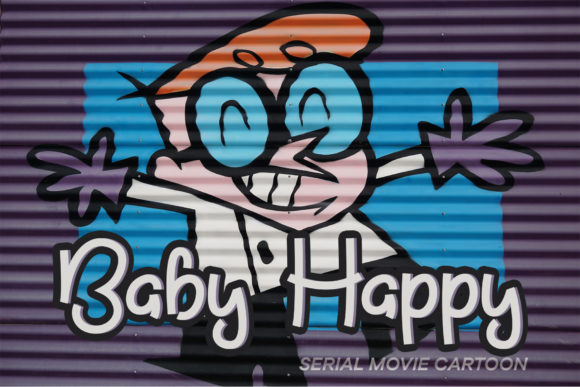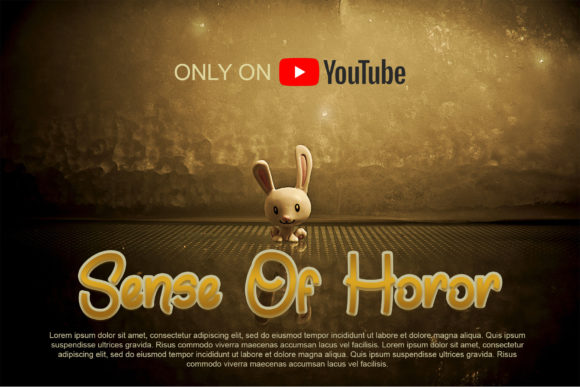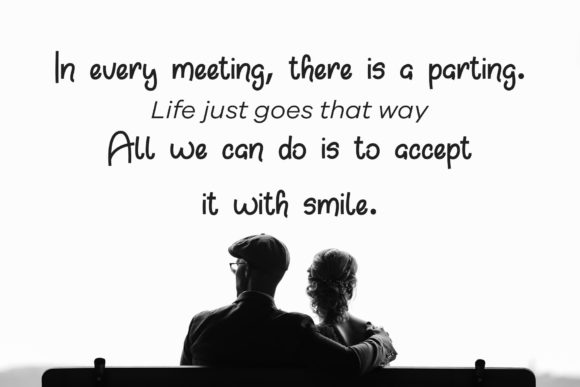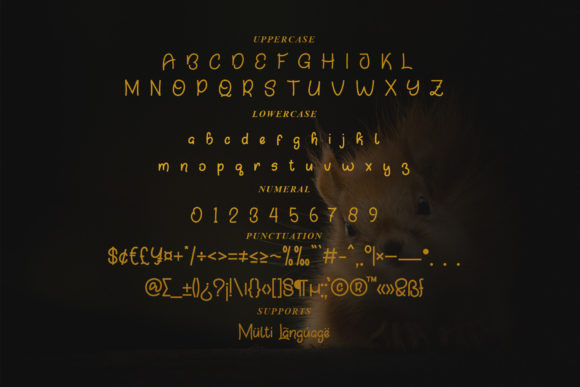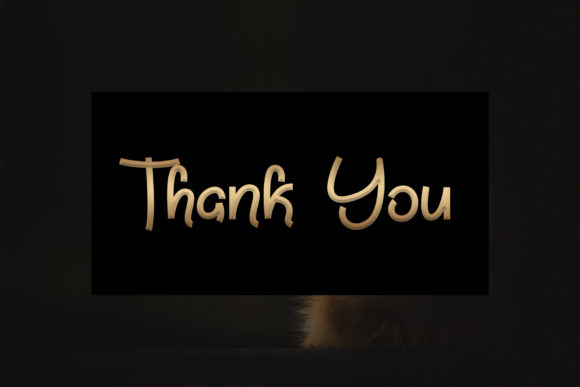
Introducing Baritone Font: The Ultimate Modern Display Font for Creative Projects
In the world of typography, a font can make or break a design. For designers and crafters looking for a modern and uniquely designed display font, Baritone Font is an excellent choice. This cool font is perfect for a wide range of creative projects, from branding and logos to wedding designs, social media posts, and advertisements.
What Makes Baritone Font Stand Out?
Baritone Font boasts a distinctive and modern design that sets it apart from other fonts. Its unique style makes it an ideal choice for designers who want to add a touch of sophistication and elegance to their projects. Whether you’re working on a logo, brochure, or social media post, Baritone Font is sure to make your design stand out.
Key Features of Baritone Font
- Modern Design: Baritone Font features a sleek and contemporary design that’s perfect for modern brands and creative projects.
- Unique Style: The font’s unique style makes it easy to recognize and remember, adding an extra layer of professionalism to your designs.
- Versatile: Baritone Font is perfect for a wide range of creative projects, from branding and logos to wedding designs, social media posts, and advertisements.
- Elegant: The font’s elegant design makes it perfect for projects that require a touch of sophistication.
Baritone Font is designed with designers and crafters in mind. Its modern and unique design makes it an excellent choice for a wide range of creative projects. Whether you’re working on a logo, brochure, or social media post, Baritone Font is sure to help you create a design that stands out.
Use Cases for Baritone Font
- Branding Projects: Use Baritone Font to create a professional and memorable brand identity.
- Logos: Create a unique and recognizable logo with Baritone Font.
- Wedding Designs: Add a touch of elegance and sophistication to your wedding designs with Baritone Font.
- Social Media Posts: Use Baritone Font to create eye-catching and engaging social media posts.
- Advertisements: Make your advertisements stand out with Baritone Font’s modern and unique design.
Why Choose Baritone Font?
With so many fonts available, why choose Baritone Font? Here are just a few reasons:
- Unique Design: Baritone Font features a unique and modern design that’s sure to make your designs stand out.
- High-Quality: The font is designed with high-quality and precision, ensuring that it looks great in any design.
In conclusion, Baritone Font is an excellent choice for designers and crafters looking for a modern and uniquely designed display font. Its unique style, elegant design, and versatility make it perfect for a wide range of creative projects. Whether you’re working on a branding project, logo, wedding design, social media post, or advertisement, Baritone Font is sure to help you create a design that stands out.